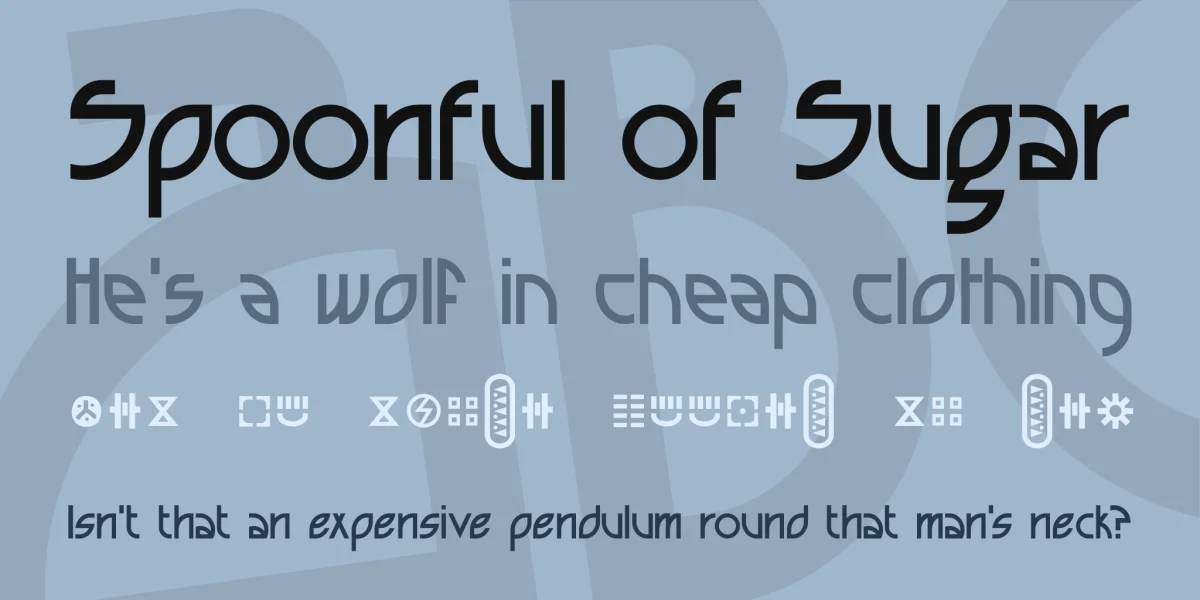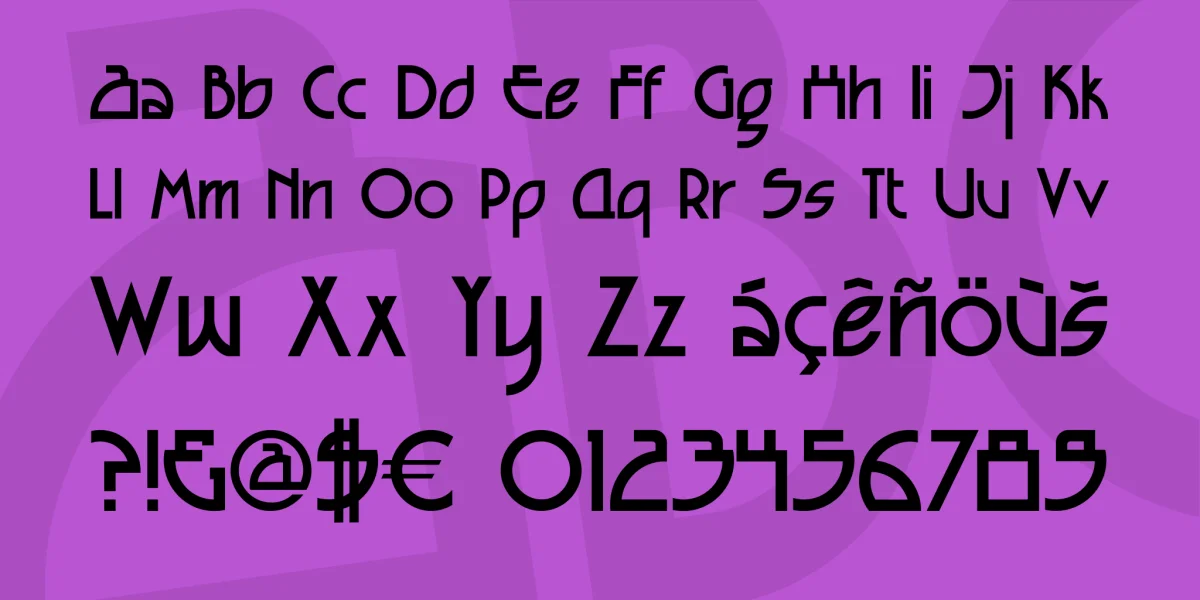
SEIZED is an original font family based on designs used in Disney World's "Alien Encounter" attraction. Version 2.0 takes the name "Seized Future" and features original lowercase letters with a complete set of symbols and international glyphs. "Seized Future A" contains alternate versions of some characters, numbers, and symbols. "Seized X-S" contains alien heiroglyphs in two styles — grunge and clean — as well as several versions of the "X-S TECH" logos.